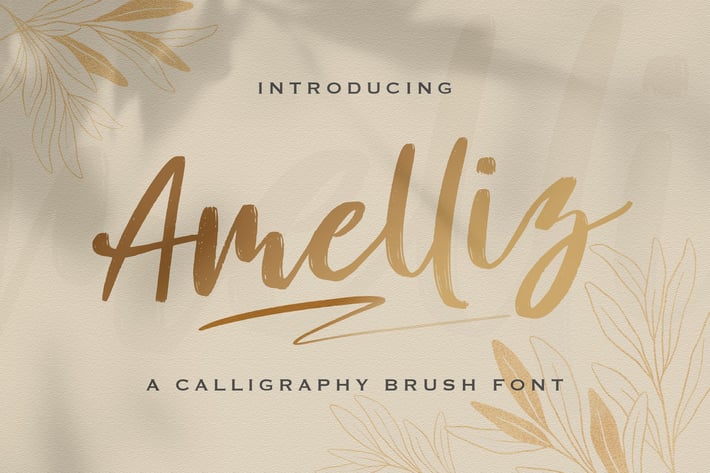
Amelliz - Calligraphy Brush Font
Introducing Amelliz - Calligraphy Brush Font
Amelliz is a gorgeous font. this brush stroke calligraphy font looks perfectly suited to special event projects, and has a charming country feel to it.
- Stylistic Alternates
Amelliz is a gorgeous font. this brush stroke calligraphy font looks perfectly suited to special event projects, and has a charming country feel to it.
- Stylistic Alternates